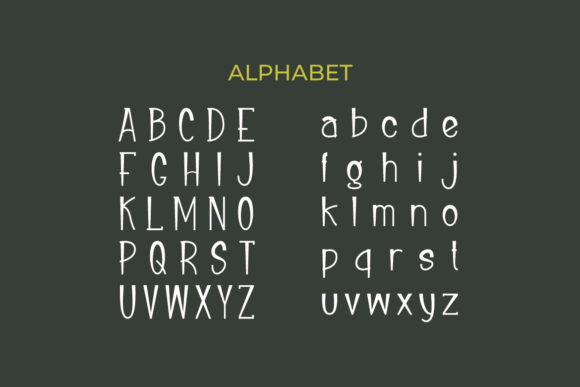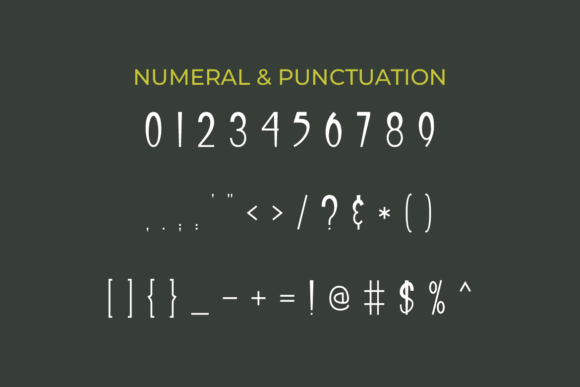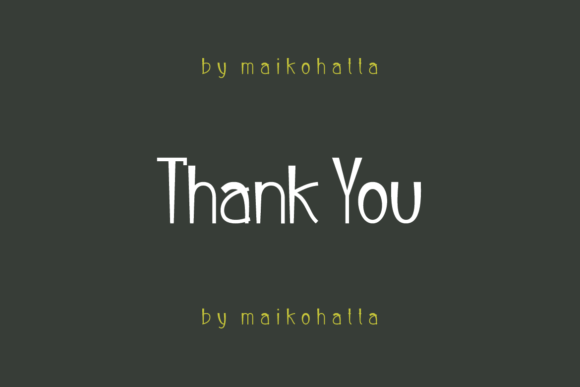
Introduction to Romeno Font
Have you ever been working on a creative project and suddenly, you’re stuck on finding the perfect font to bring your idea to life? The search for the ideal typography can be frustrating, but what if I told you that you’ve just found your new best friend? Welcome to the world of Romeno Font, a cool and modern display font that will elevate your design to the next level.
| 👤 Author | maikofarazhatta |
Imagine being able to effortlessly add a touch of sophistication and elegance to your designs, whether it’s a logo, a poster, or a social media graphic. With Romeno Font, the possibilities are endless. This high-quality design resource is perfect for designers who want to add a unique twist to their creative projects. And the best part? You can download it for free, giving you complete freedom to experiment and push the boundaries of your imagination.
Whether you’re a seasoned designer or just starting out, Romeno Font is an invaluable addition to your toolkit. Its transparent background makes it easy to customize and integrate with any design, ensuring that your creative vision shines through.
Key Features of Romeno Font
- High-quality design resource with a transparent background, perfect for creative projects
- Designed to provide a unique and stylish look for your design work, ideal for digital and print media
- Includes a range of characters, including uppercase and lowercase letters, numbers, and punctuation marks
- Ideal for use in a variety of creative projects, including logos, branding, and typography-based designs
Honest Review: Romeno Font
I recently came across the Romeno Font, and I must say it’s been a great addition to my design resources. One of the standout features is its high-quality design, making it perfect for any creative project. The font is also available for free download, which is always a bonus.
- ✨ High-quality design that’s perfect for various creative projects.
- ✨ Transparent background, making it easy to customize and use in various design scenarios.
- ⚠️ Limited character set, which may not be ideal for long-form content or projects that require a wide range of characters.
- ⚠️ Not suitable for print materials, as the font may not render well in larger sizes.
Overall, I’m impressed with the Romeno Font. While it may have its limitations, it’s a great resource for designers who need a high-quality, free font for digital projects. With a little creativity, you can work around the limitations and achieve great results.
Tips for Getting the Most Out of Romeno Font
To get the most out of the Romeno Font, use it with a transparent background to create a clean and modern look. Experiment with different font sizes and colors to add depth and visual interest to your design.
The Romeno Font is ideal for creating eye-catching headings and titles. It’s also great for use in logos, branding materials, and other design elements where a high-quality, creative font is needed.